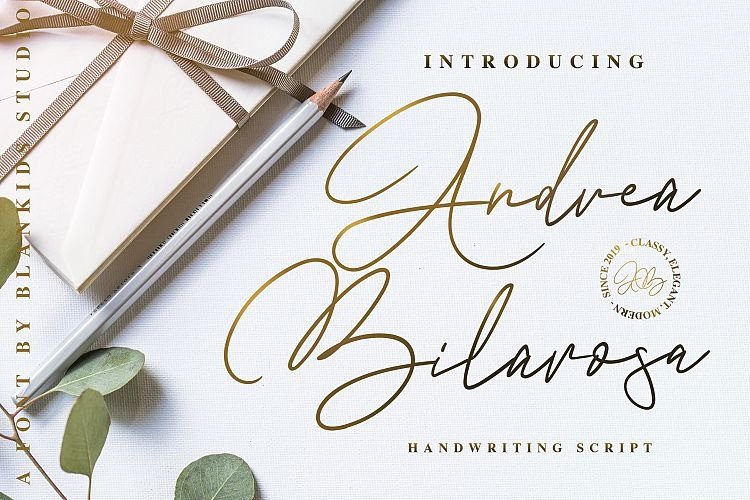
Andrea Belarosa Handwritten Font
This a handwritten with a modern script style. This font is made with a brush pen to produce perfect handwriting, this font was created for you! Introducing Andrea Belarosa Font. It’s designed and shared by Blankids.
It’s inspired by signature and stylish handwriting, Andrea Belarosa Handwritten can be used for various projects such as stationery invitations, social media, logos, weddings, branding, graphic design to support the project you want to work on.